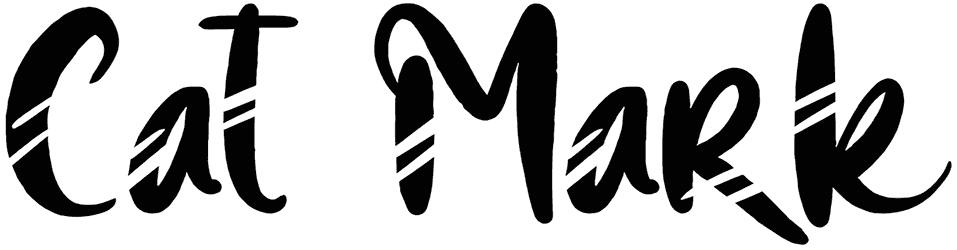
Cat Mark Font
Cat Mark is a cute and funny font that was inspired by the appearance of a cat’s scratches. Branding, cards, and flyer design, and more would all benefit from the use of this fancy font.